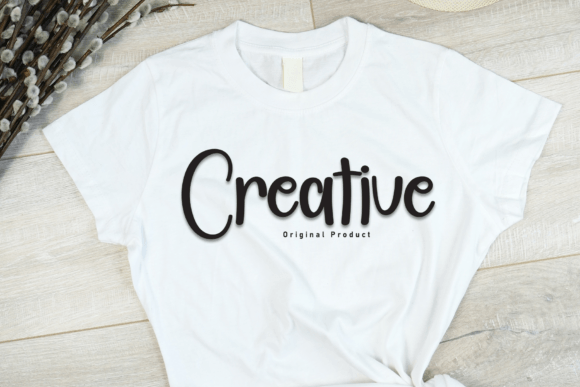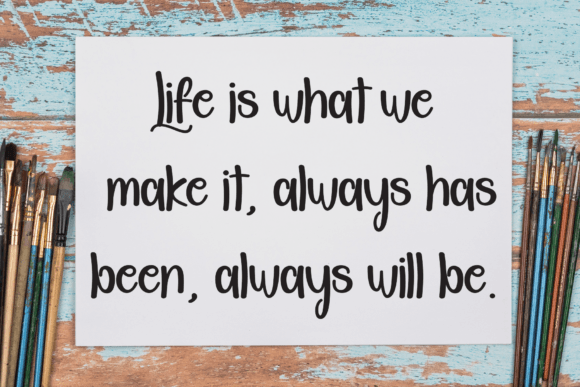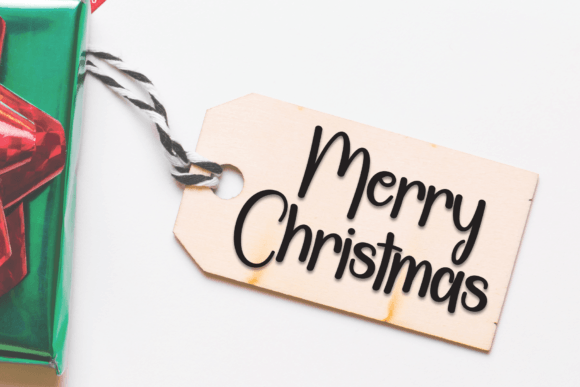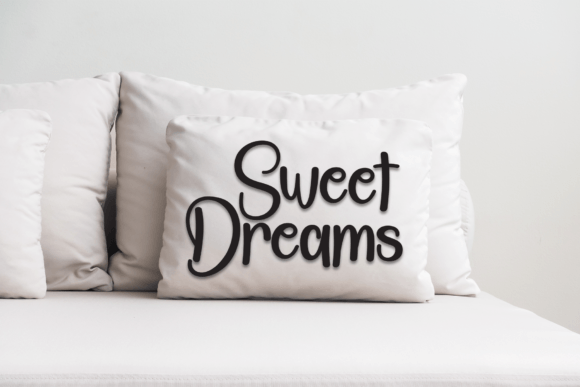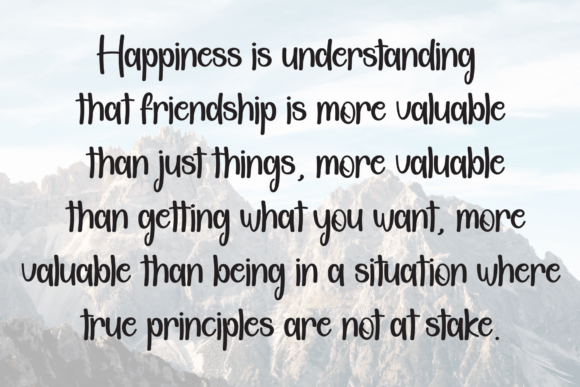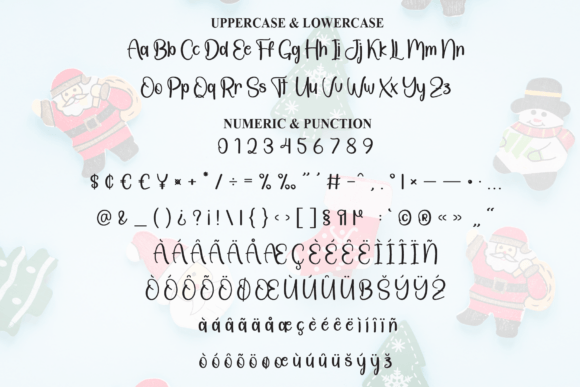
Introducing Comic Christmas Font: Add a Playful Touch to Your Holiday Designs
Are you looking for a font that embodies the fun and festive spirit of Christmas? Look no further than the Comic Christmas Font! This delightful, bold handwritten font is perfect for designers and crafters who want to add a playful touch to their holiday designs. In this article, we’ll explore the features and benefits of Comic Christmas Font, and show you how to make the most of this fantastic font.
What is Comic Christmas Font?
Comic Christmas Font is a fun, bold handwritten font that captures the playful spirit of the holiday season. Its cheerful and lively letters are perfect for festive cards, decorations, and any Christmas-themed designs. The font’s playful and carefree vibe makes it an excellent choice for designers and crafters who want to create eye-catching and engaging holiday content.
Key Features of Comic Christmas Font
- Bold and playful letters: Comic Christmas Font features bold, playful letters that are sure to grab attention. The font’s chunky letters are perfect for creating eye-catching headlines and titles.
- Handwritten style: The font’s handwritten style gives it a personal and friendly feel, making it perfect for creating festive cards, invitations, and other holiday-themed designs.
- Cheerful and lively: Comic Christmas Font is designed to capture the cheerful and lively spirit of the holiday season. Its bright and bubbly letters are sure to put a smile on anyone’s face.
- Easy to read: Despite its playful style, Comic Christmas Font is easy to read, making it perfect for creating designs that need to be both fun and functional.
Uses for Comic Christmas Font
Comic Christmas Font is a versatile font that can be used for a wide range of holiday designs, including:
- Festive cards and invitations: Create eye-catching and engaging holiday cards and invitations with Comic Christmas Font.
- Christmas decorations: Use Comic Christmas Font to create festive decorations, such as garlands, banners, and signs.
- Holiday-themed designs: Comic Christmas Font is perfect for creating holiday-themed designs, such as gift tags, wrapping paper, and holiday-themed social media graphics.
- Crafting projects: Comic Christmas Font is a great choice for crafters who want to add a personal touch to their holiday crafting projects, such as scrapbooking, paper crafting, and DIY gifts.
Tips for Using Comic Christmas Font
Here are some tips for getting the most out of Comic Christmas Font:
- Use it with bright colors: Comic Christmas Font looks best when paired with bright, bold colors. Try using it with traditional holiday colors like red, green, and gold.
- Experiment with different sizes: Comic Christmas Font looks great in a variety of sizes. Experiment with different font sizes to create visual interest and add emphasis to your designs.
- Combine it with other fonts: Comic Christmas Font pairs well with other fonts, such as serif and sans-serif fonts. Try combining it with other fonts to create interesting and dynamic designs.
Comic Christmas Font is a fun and festive font that’s perfect for designers and crafters who want to add a playful touch to their holiday designs. With its bold and playful letters, handwritten style, and cheerful and lively vibe, Comic Christmas Font is sure to become a go-to font for holiday designs. Whether you’re creating festive cards, decorations, or holiday-themed designs, Comic Christmas Font is a great choice. So why not give it a try and see how it can add some holiday cheer to your designs?